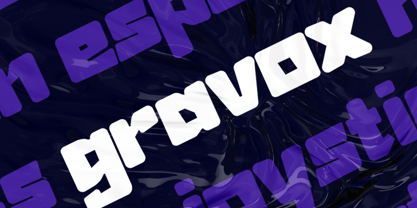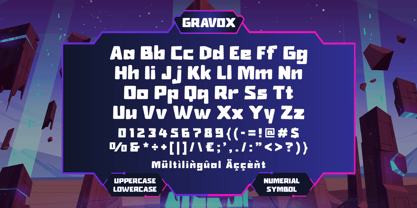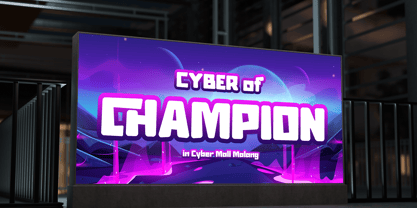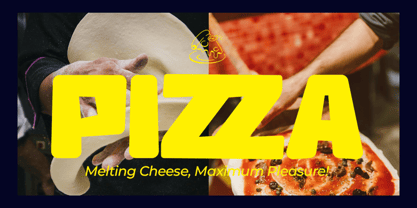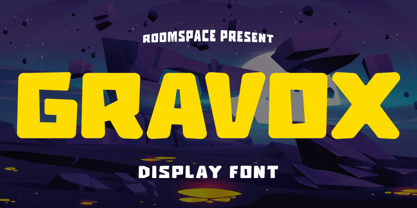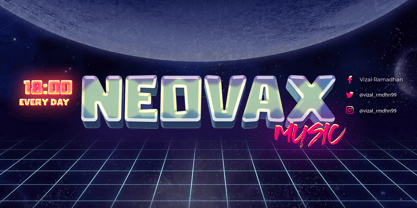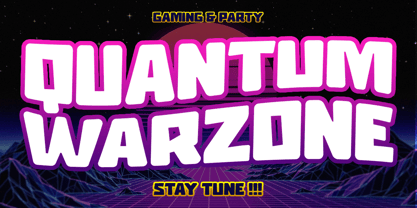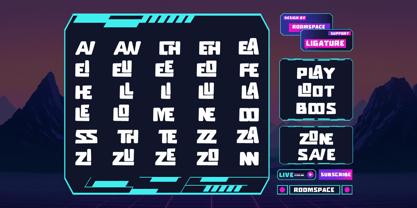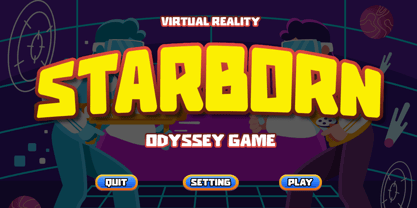
Gravox
The Gravox Font Family was designed by Bakhrudin Ja'far and published by Jafar07. Gravox contains 2 styles and family package options.
Gravox is a retro bold display font with strong futuristic vibes that brings back the energy of 80s arcade and neon style. Each letter is designed with thick strokes, sharp edges, and balanced proportions, making it stand out in any creative project. Gravox offers great flexibility with clean kerning, smooth spacing, and multilingual support, ensuring a flawless design experience. Perfect for logos, posters, gaming covers, social media, packaging, editorial titles, and branding projects, Gravox is the ultimate choice to add a bold and vibrant personality to your designs. Try Gravox today and make your work truly unforgettable!